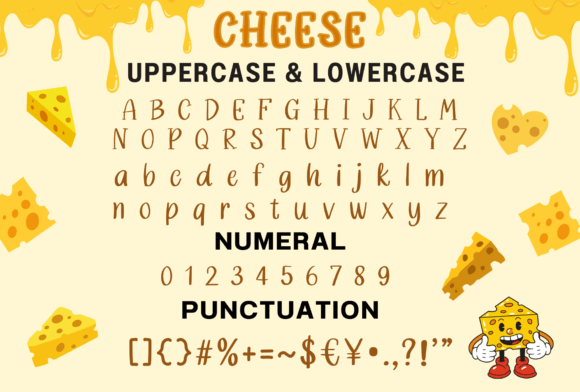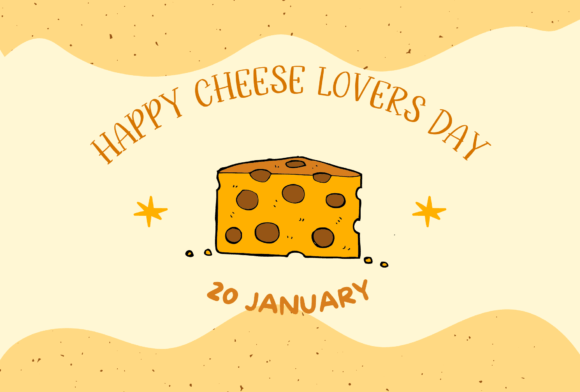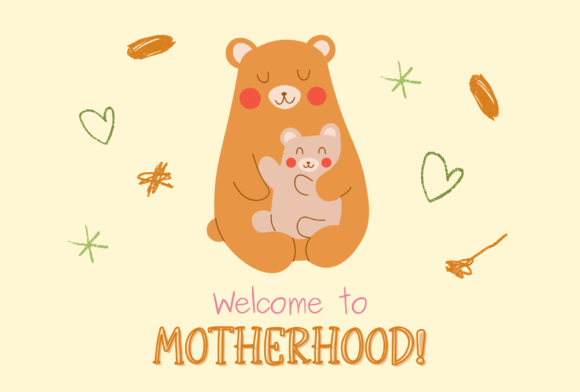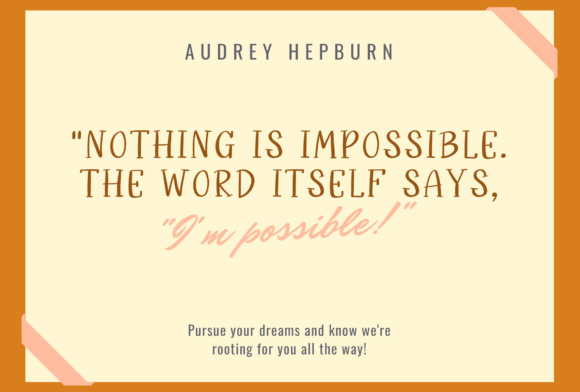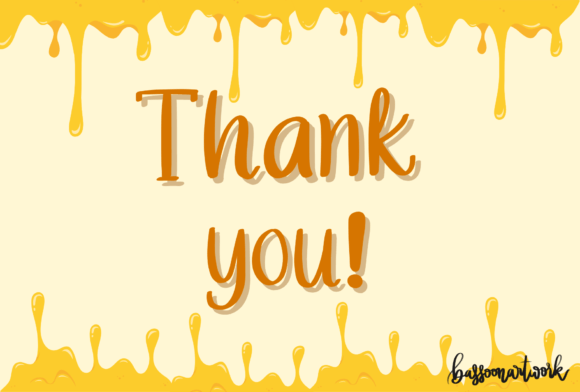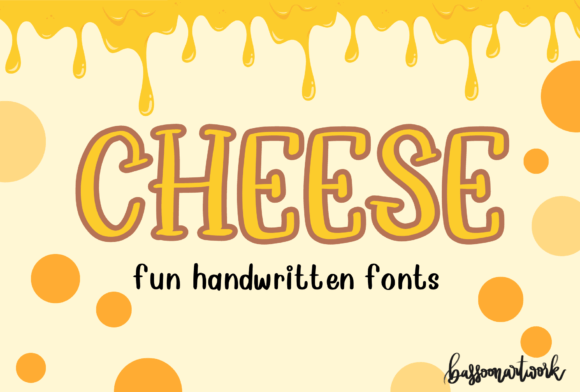
Introducing Cheese Font: The Perfect Addition to Your Festive and Fun Designs
Are you a designer or crafter looking for a font that can add a touch of whimsy and playfulness to your projects? Look no further than Cheese Font! This adorable handwritten font is perfect for creating festive and fun designs for various occasions, including festivals, Easter, Christmas, birthdays, Mother’s Day, and more.
What Makes Cheese Font So Special?
Cheese Font is a cute and fun handwritten font that is sure to capture the attention of your audience. Its playful and carefree vibe makes it an excellent choice for designers and crafters who want to add a personal touch to their projects. Whether you’re creating designs for T-shirts, mugs, pillows, keychains, stickers, or any other product, Cheese Font is the perfect addition to make your designs stand out.
Use Cheese Font for Various Occasions
One of the best things about Cheese Font is its versatility. You can use it to create designs for various occasions, including:
- Festivals: Add a playful touch to your festival designs with Cheese Font. It’s perfect for creating eye-catching posters, flyers, and social media graphics.
- Easter: Create adorable Easter-themed designs with Cheese Font. It’s ideal for designing Easter egg hunt posters, Easter basket tags, and other holiday-themed projects.
- Christmas: Get into the holiday spirit with Cheese Font. Use it to create festive Christmas cards, gift tags, and decorations.
- Birthdays: Make your birthday designs extra special with Cheese Font. It’s perfect for creating custom birthday cards, party invitations, and decorations.
- Mother’s Day: Show your mom how much you care with a thoughtful design featuring Cheese Font. It’s ideal for creating custom Mother’s Day cards, gift tags, and other projects.
Product Ideas Using Cheese Font
Cheese Font is not just limited to digital designs. You can also use it to create a wide range of products, including:
- T-shirts: Add a playful touch to your T-shirt designs with Cheese Font. It’s perfect for creating fun and quirky designs for festivals, holidays, and special occasions.
- Mugs: Create adorable mug designs with Cheese Font. It’s ideal for designing custom mugs for birthdays, holidays, and everyday use.
- Pillows: Add a touch of whimsy to your pillow designs with Cheese Font. It’s perfect for creating custom pillows for home decor or as a gift.
- Keychains: Create fun and quirky keychain designs with Cheese Font. It’s ideal for designing custom keychains for festivals, holidays, and special occasions.
- Stickers: Use Cheese Font to create custom stickers for laptops, water bottles, or any other surface. It’s perfect for adding a playful touch to your designs.
Why Choose Cheese Font?
So, why choose Cheese Font for your designs? Here are just a few reasons:
- Unique and playful: Cheese Font is a one-of-a-kind font that adds a touch of whimsy and playfulness to your designs.
- Versatile: Cheese Font is perfect for various occasions and products, making it a great addition to your design toolkit.
- Easy to use: Cheese Font is easy to read and works well in both digital and print designs.
In conclusion, Cheese Font is a cute and fun handwritten font that’s perfect for designers and crafters who want to add a touch of whimsy and playfulness to their projects. Its versatility, unique style, and ease of use make it an excellent choice for various occasions and products. So, what are you waiting for? Get creative with Cheese Font and make your designs stand out!